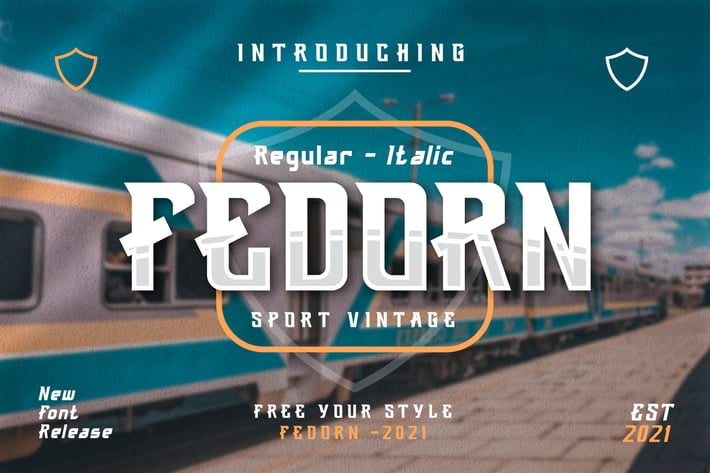
Fedorn Modern Classy Font
Introducing Fedorn Modern Classy Font
This all caps font is suitable for posters, magazines, apparels, movie headlines, logo, packaging and more.